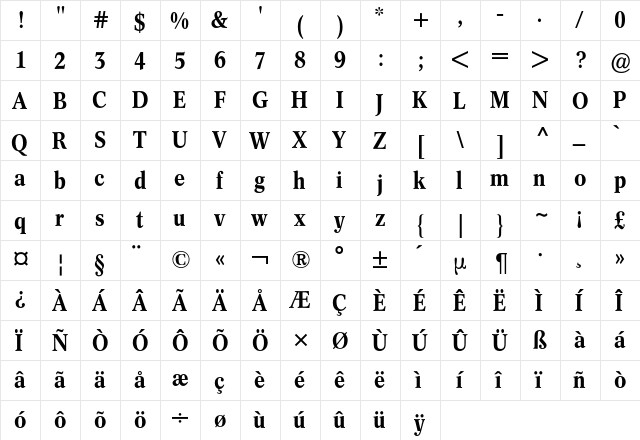
Concorde Nova BQ Regular
Design Context for Concorde Nova BQ Typeface
Concorde Nova BQ offers clean, dependable letterforms without strong stylistic allegiance, making it a practical choice for designers who need flexibility.
Pro Tip: Use Concorde Nova BQ in both headline and body roles to test its range before committing to a single application.